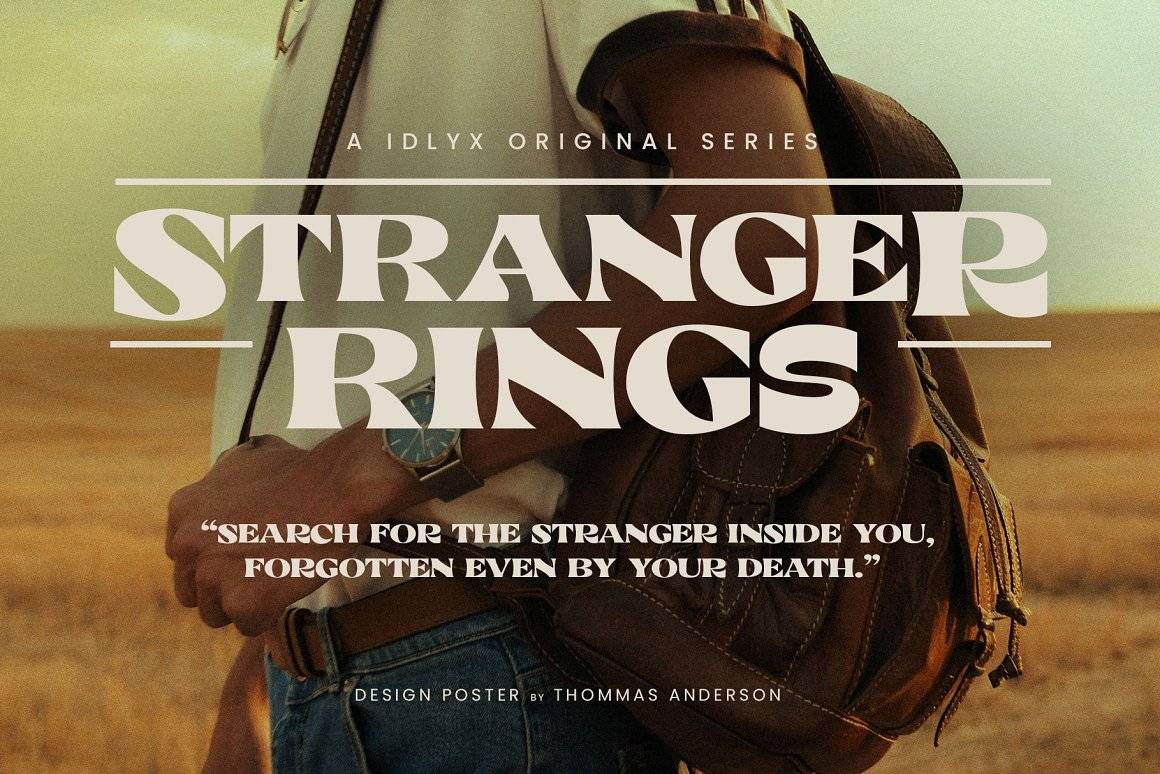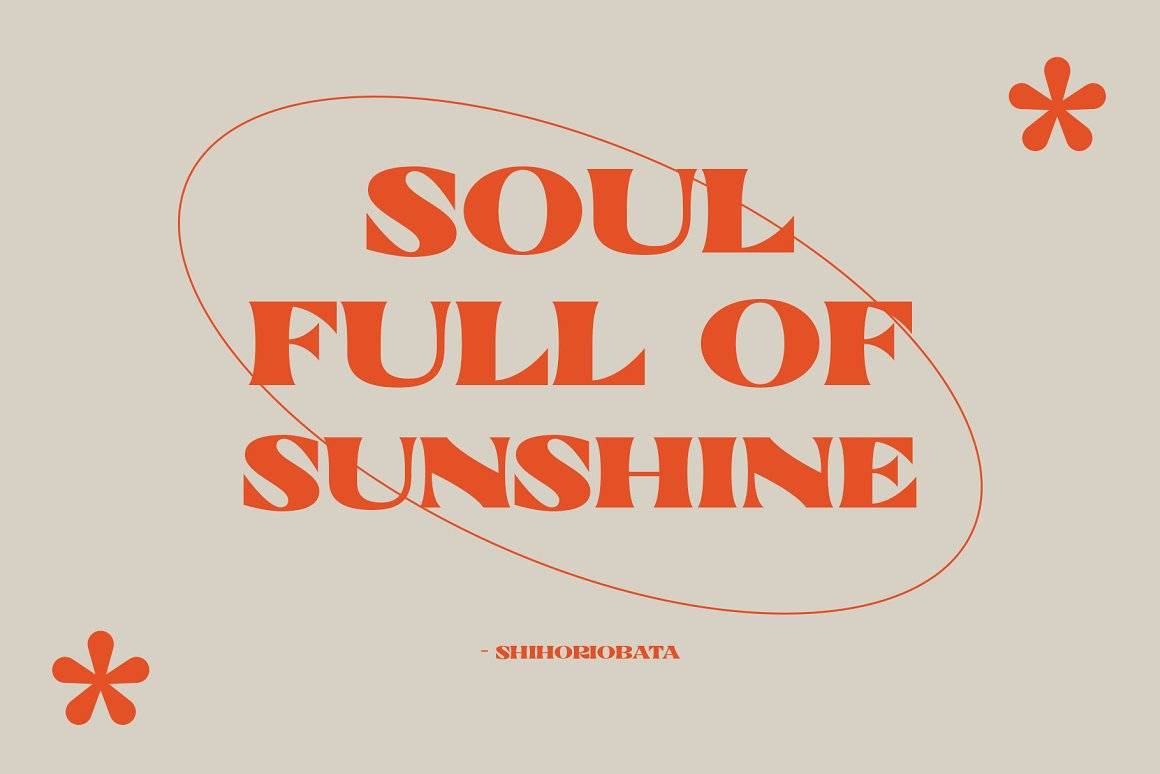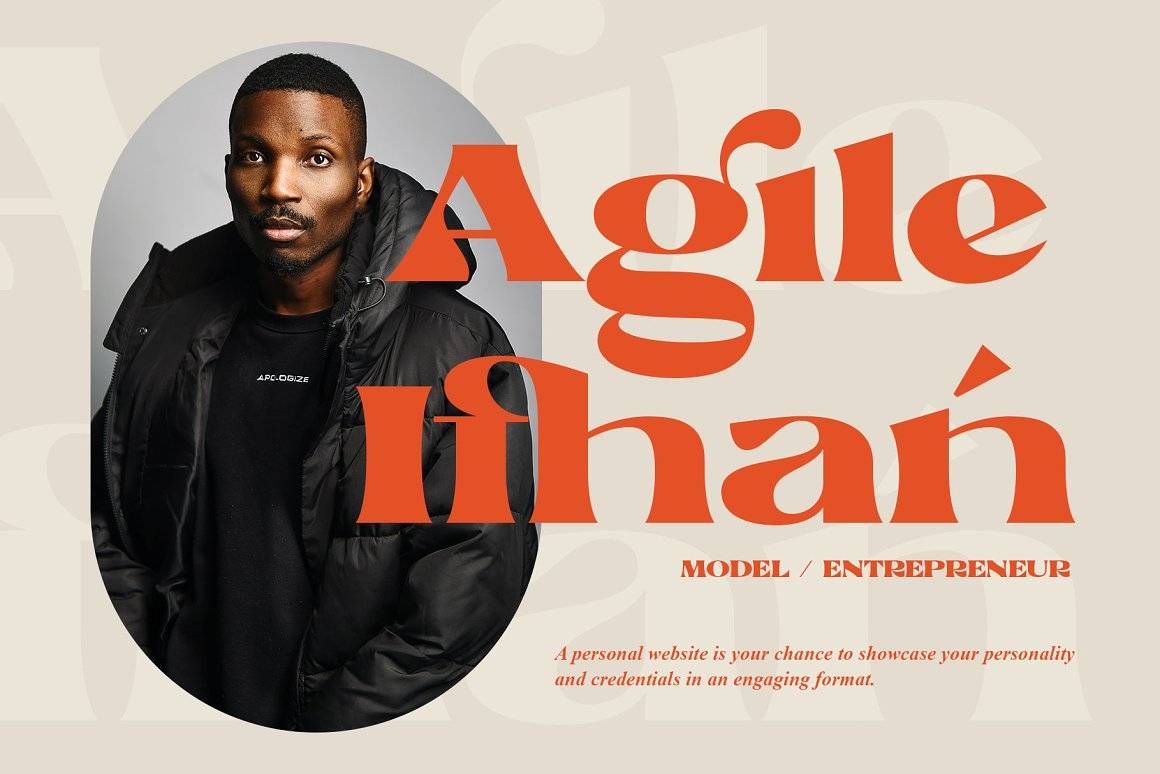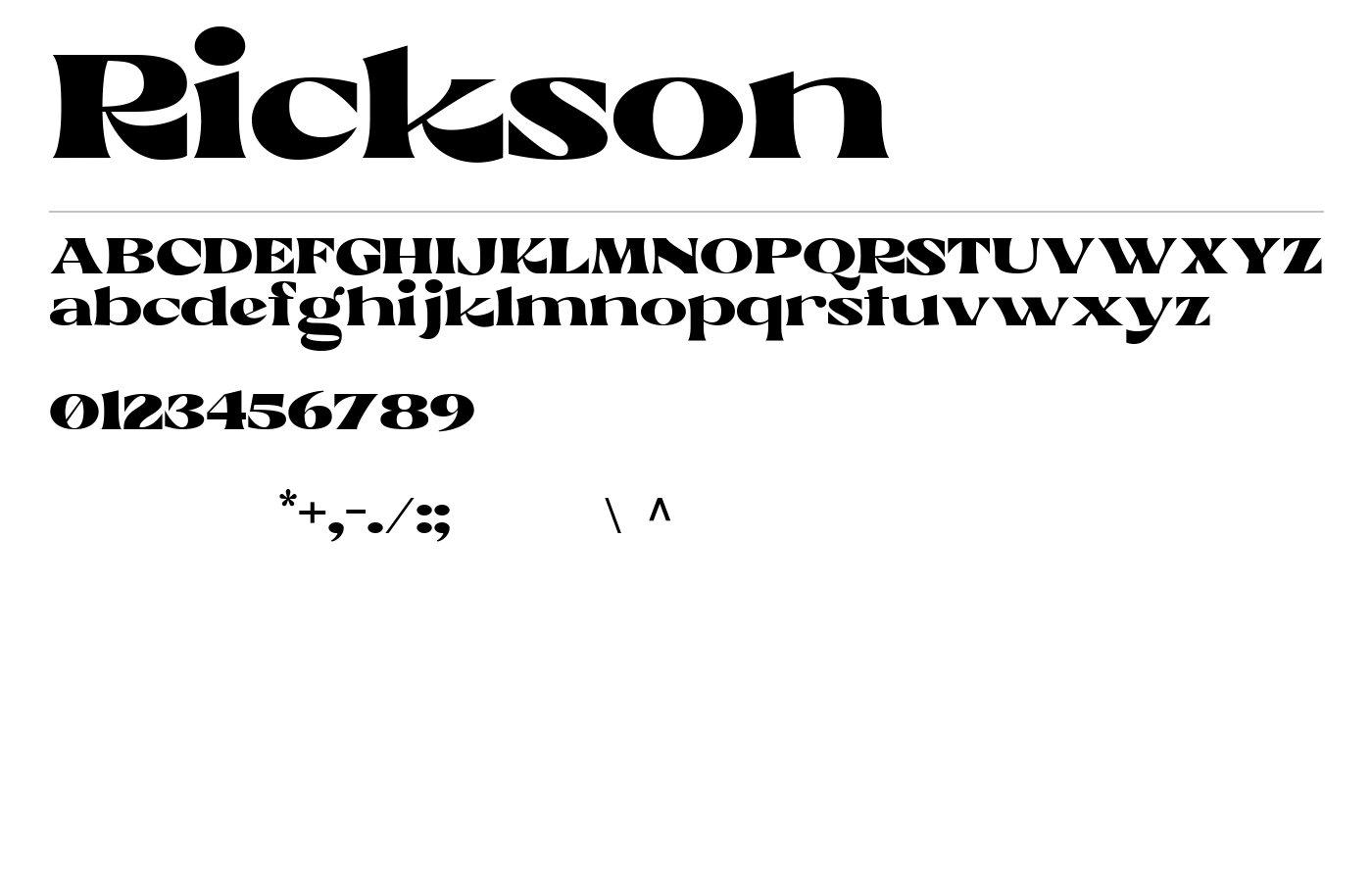
Rickson is a bold serif font with a strong presence, featuring thick, high-contrast strokes and sharp, bracketed serifs that give it a distinctly modern yet classic feel. Its unique letterforms, such as the curved tail on the Q and distinctive shapes in the lowercase, add personality making it ideal for eye-catching headlines, logos, and fashion branding where elegance and impact are key. This font works best in display settings where its dramatic style can shine without compromising readability.
Rickson Font
About Rickson Font